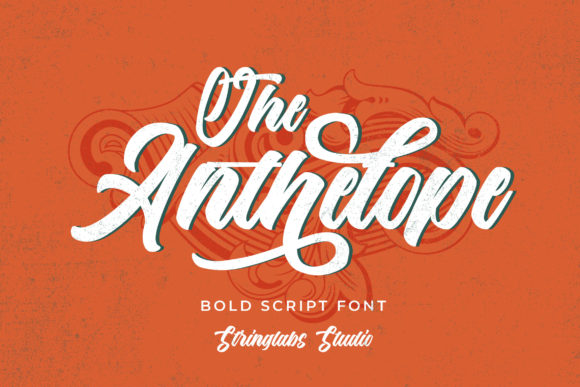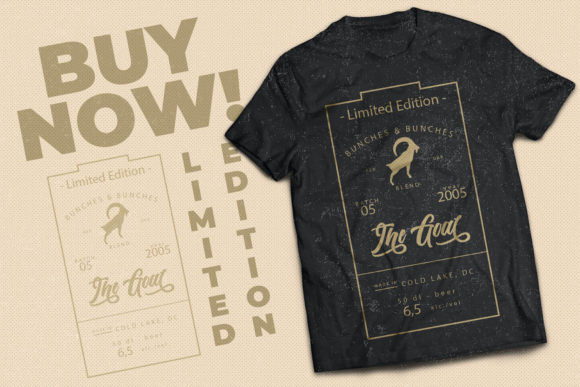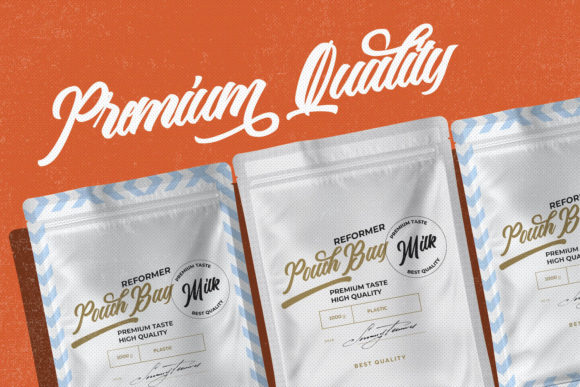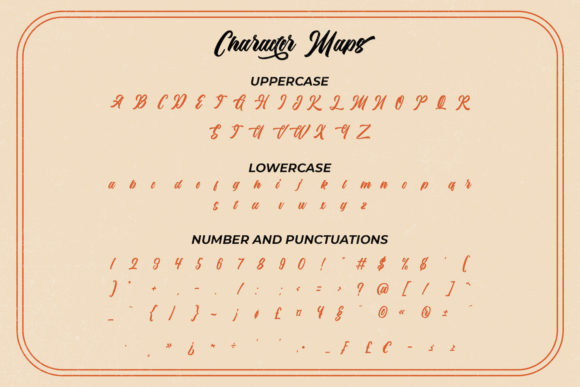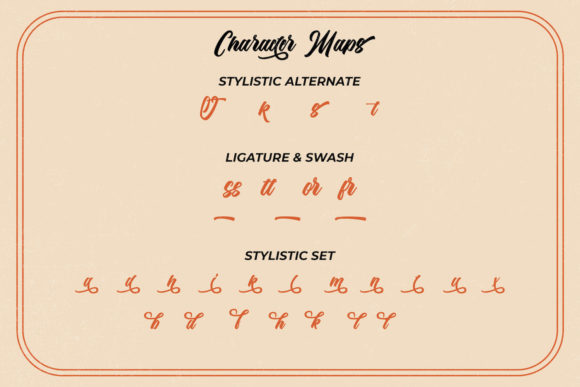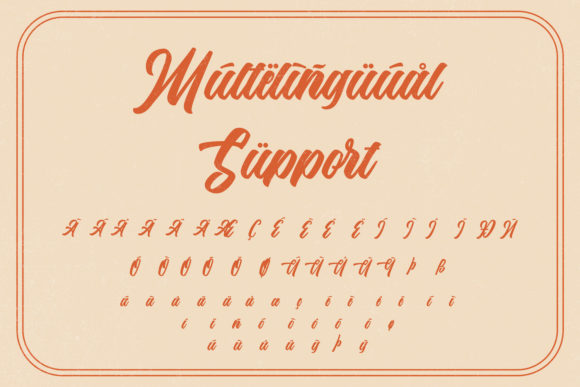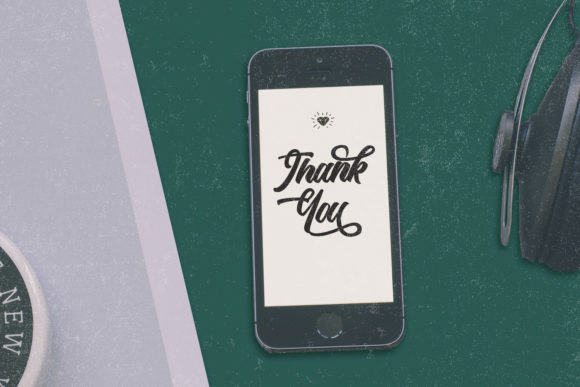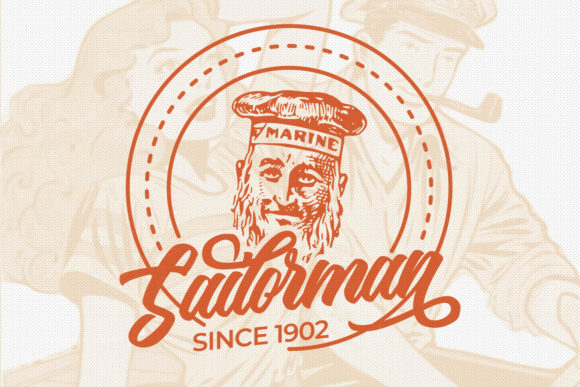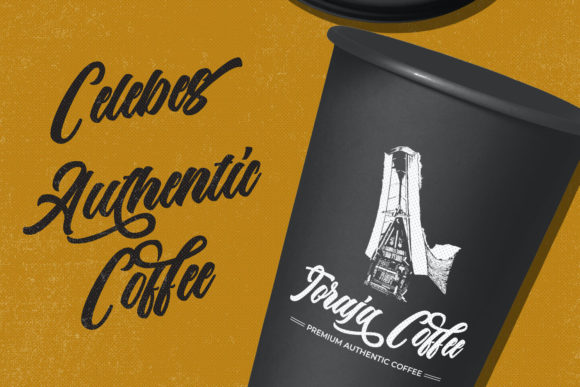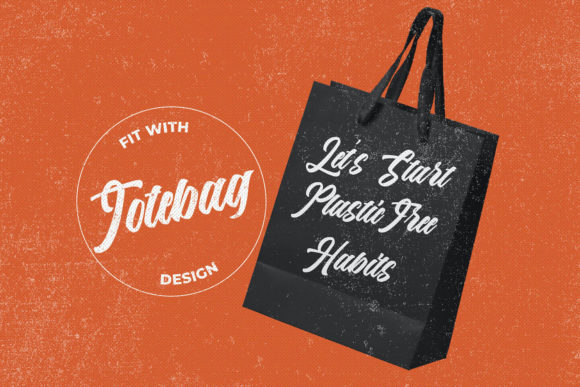
The Anthelope Font
About The Anthelope Font
The Anthelope is a retro bold script with groovy style. The Anthelope is perfect for retro lovers and it is perfect for branding and logos such as, barbershop, motorcycle club, clothing, coffee shops and much more!